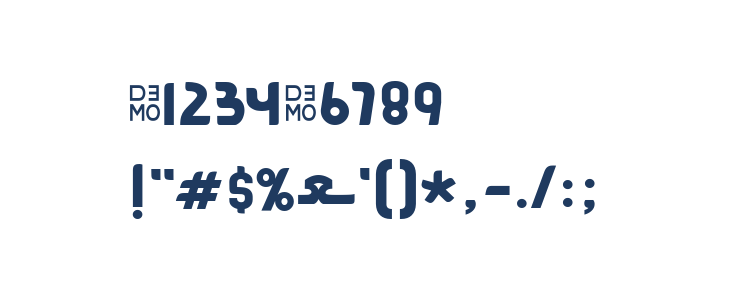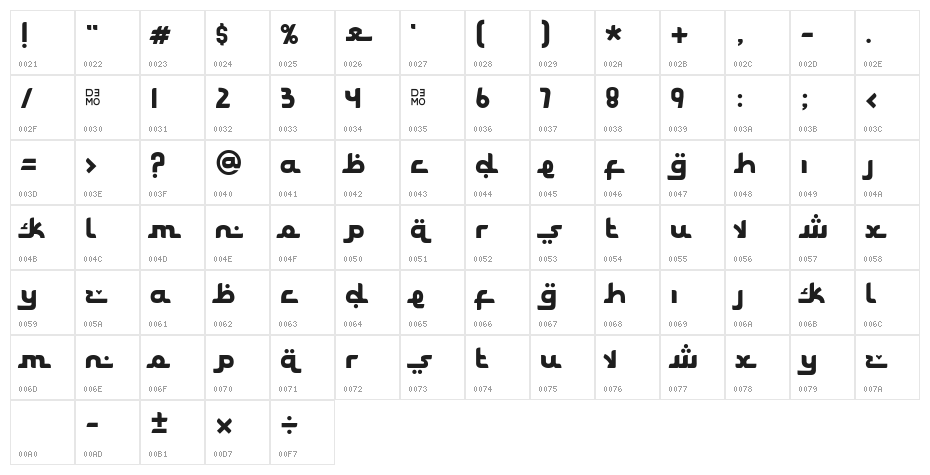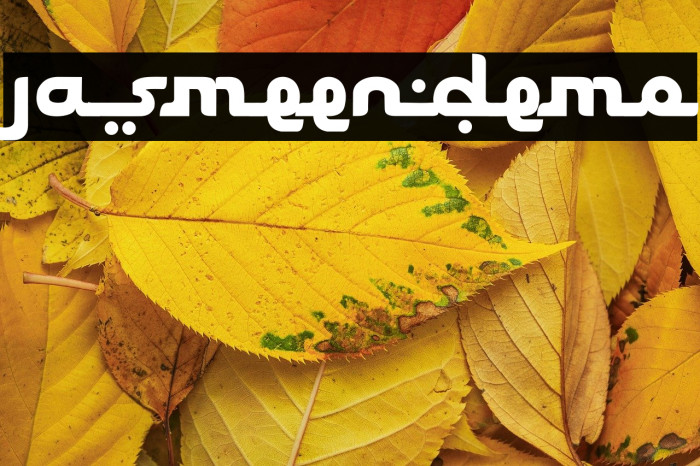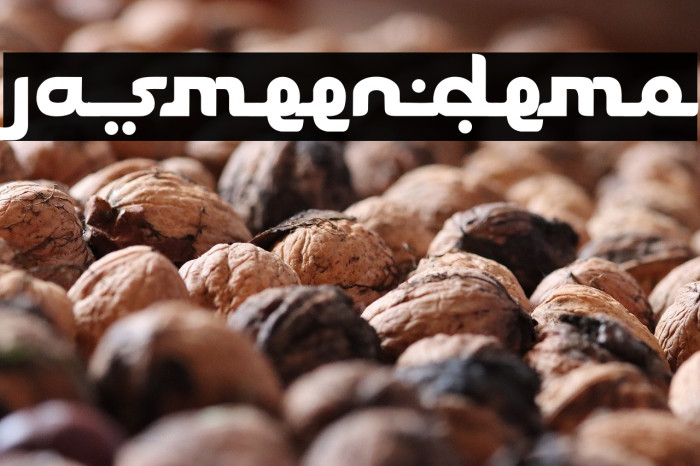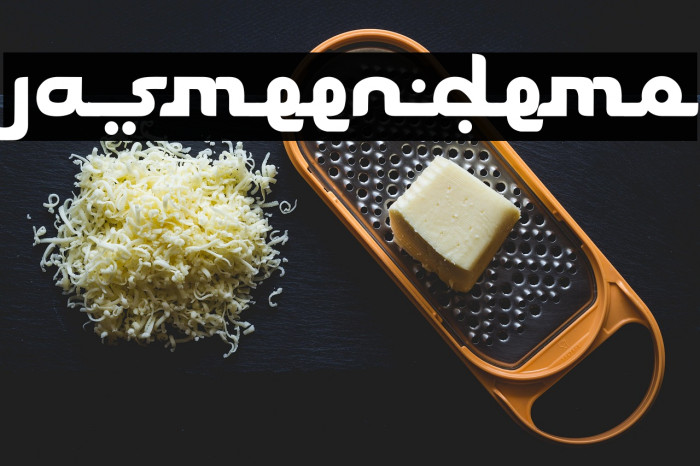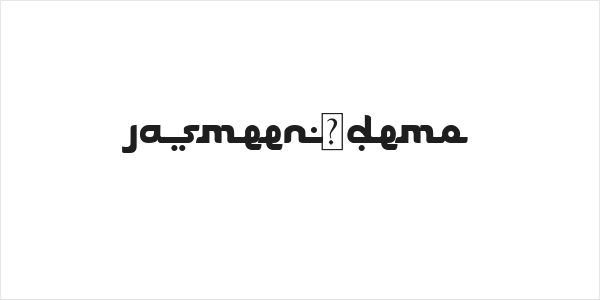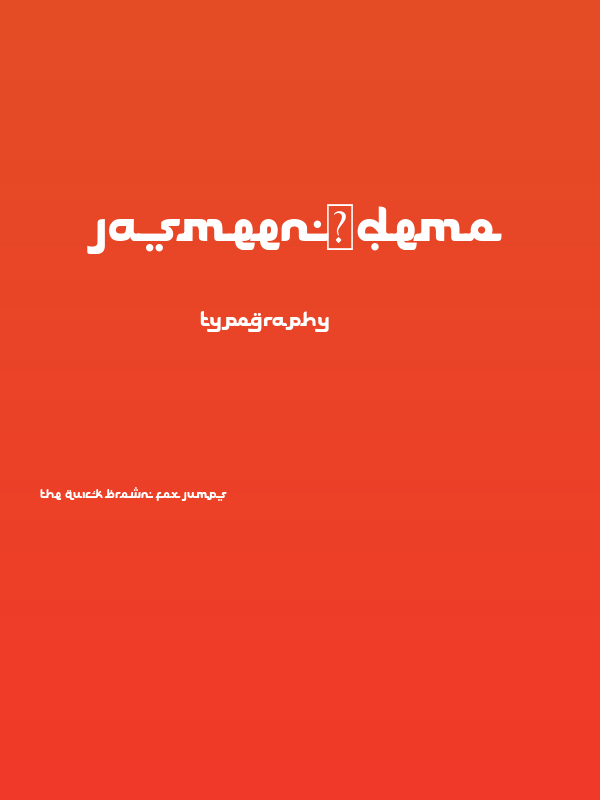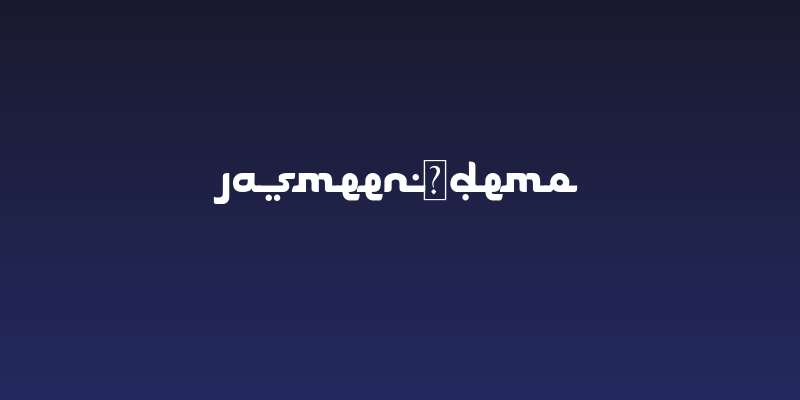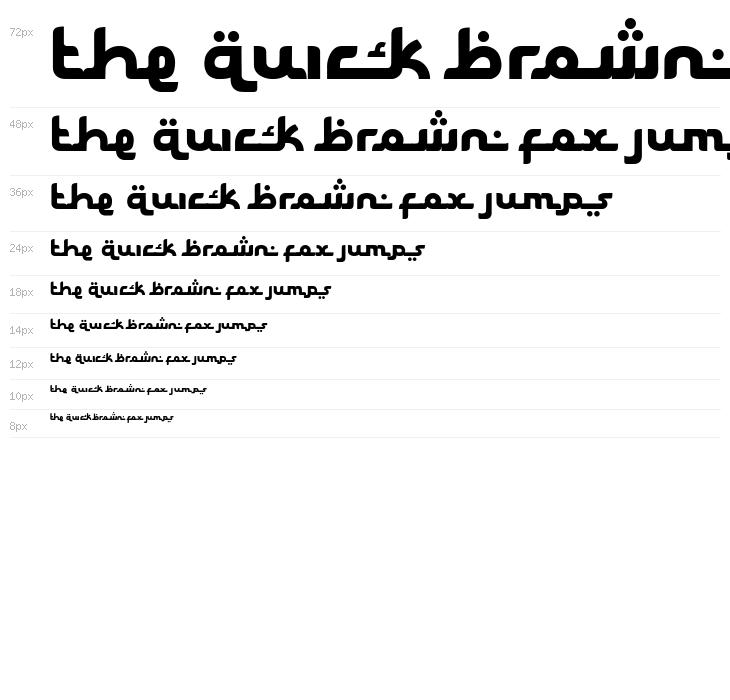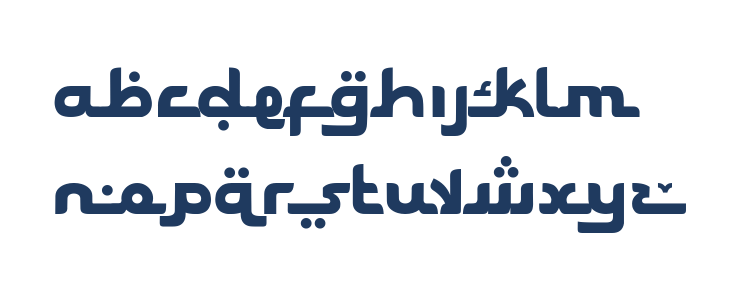
Jasmeen_demo Font
Jasmeen_demo Description
This font features a bold and modern design with a unique geometric structure. The characters are rounded with a consistent stroke width, giving it a smooth and cohesive appearance. The uppercase and lowercase letters maintain a uniform height, creating a balanced look. The numbers are distinct and easily readable, while the special characters add a playful touch. This font's style is both contemporary and versatile, making it suitable for various design applications.